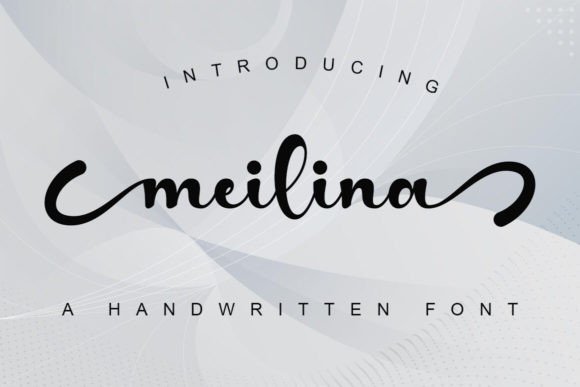
Meilina Font: The Enchanting Handwritten Font for Your Creative Projects
Are you looking for a font that can add a touch of elegance and sophistication to your creative projects? Look no further than Meilina Font, an enchanting handwritten font that is perfect for a wide range of applications. In this article, we’ll take a closer look at Meilina Font, its features, and how it can help take your projects to the highest level.
What is Meilina Font?
Meilina Font is a beautiful, handwritten font that is designed to add a personal touch to your projects. Its elegant and flowing lines make it perfect for creating logos, branding materials, quotes, and more. Whether you’re a graphic designer, a small business owner, or an artist, Meilina Font is a versatile font that can help you achieve your creative goals.
Key Features of Meilina Font
- Handwritten style: Meilina Font has a unique, handwritten style that adds a personal touch to your projects.
- Multilingual support: Meilina Font supports multiple languages, making it a great choice for projects that require international appeal.
- High-quality design: Meilina Font is designed with high-quality craftsmanship, ensuring that it looks great in any context.
Meilina Font is a versatile font that can be used in a wide range of creative projects. Here are some ideas to get you started:
- Logos and branding: Use Meilina Font to create a unique and memorable logo for your business or brand.
- Quotes and posters: Meilina Font is perfect for creating inspirational quotes and posters that showcase your message.
- Clothing and tote bags: Add a personal touch to your clothing and tote bags with Meilina Font.
- Business cards: Use Meilina Font to create professional-looking business cards that stand out.
- Websites: Meilina Font can be used on websites to add a touch of elegance and sophistication.
Benefits of Using Meilina Font
Meilina Font offers a range of benefits that make it a great choice for your creative projects. Here are some of the advantages of using Meilina Font:
- Elegant and sophisticated: Meilina Font adds a touch of elegance and sophistication to your projects.
- Unique and memorable: Meilina Font is a unique font that can help your project stand out from the crowd.
- Multilingual support: Meilina Font supports multiple languages, making it a great choice for projects that require international appeal.
Tips and Tricks for Using Meilina Font
Here are some tips and tricks for getting the most out of Meilina Font:
- Experiment with different sizes: Meilina Font looks great in a range of sizes, from small to large.
- Pair with other fonts: Meilina Font can be paired with other fonts to create a unique and interesting effect.
- Use on different backgrounds: Meilina Font can be used on a range of backgrounds, from light to dark.
- Pay attention to kerning: Make sure to adjust the kerning to ensure that the font looks great in your project.
Meilina Font is an enchanting handwritten font that is perfect for a wide range of creative projects. Its elegant and flowing lines make it a great choice for logos, branding materials, quotes, and more. With its PUA encoding and multilingual support, Meilina Font is easy to use and versatile. Whether you’re a graphic designer, a small business owner, or an artist, Meilina Font can help take your projects to the highest level.